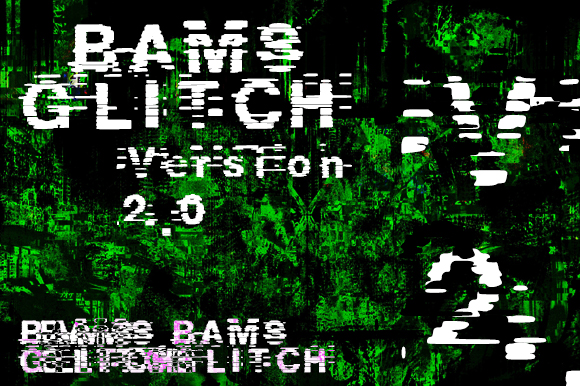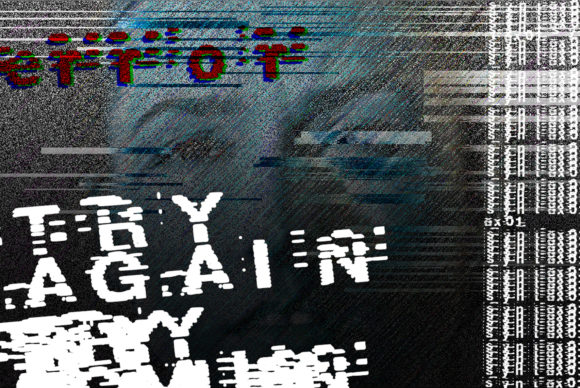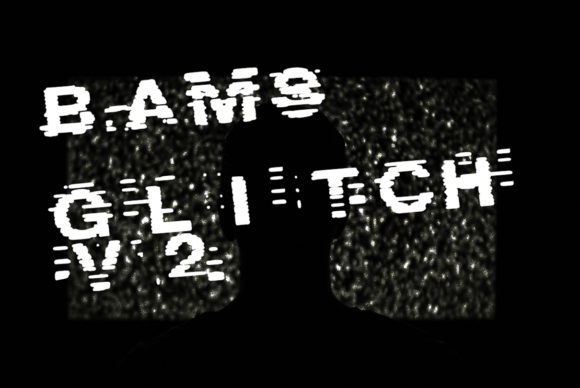
Introduction to Bams Glitch V2 Font
Love glitch art.
Here is one more to help put an extra element to your designs and creations Great for sci-fi cyberpunks.